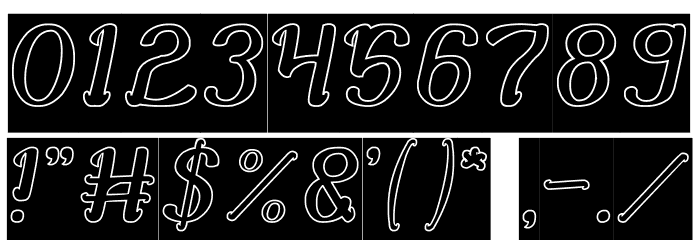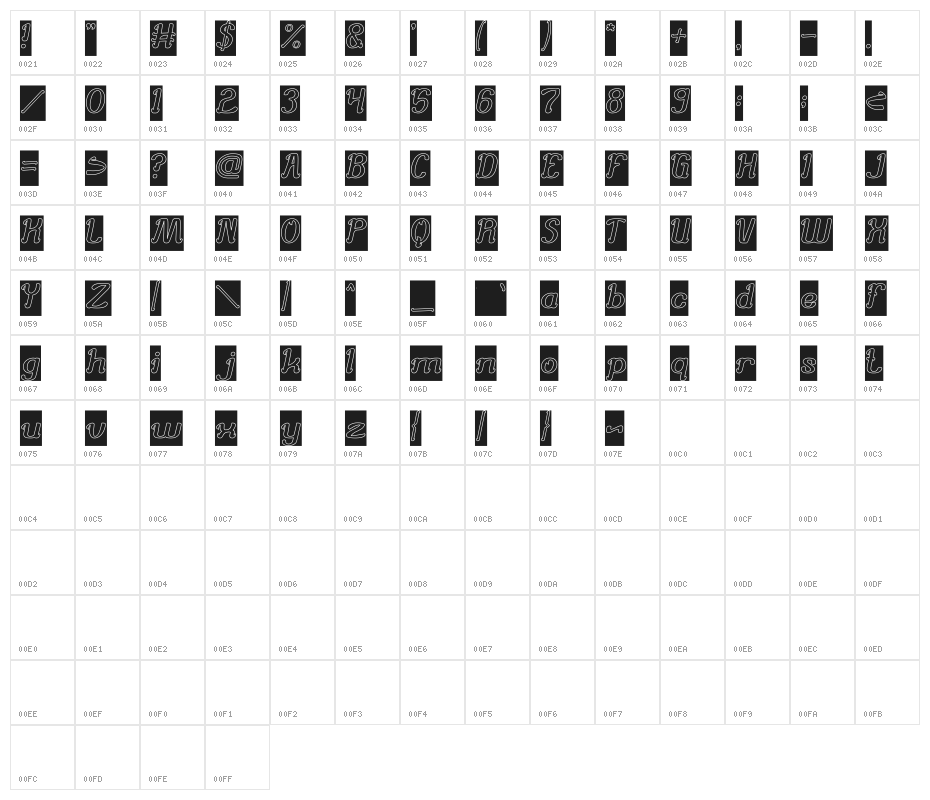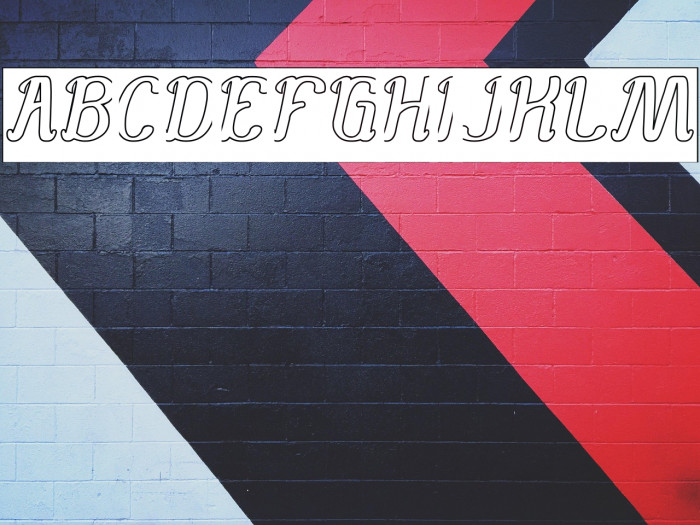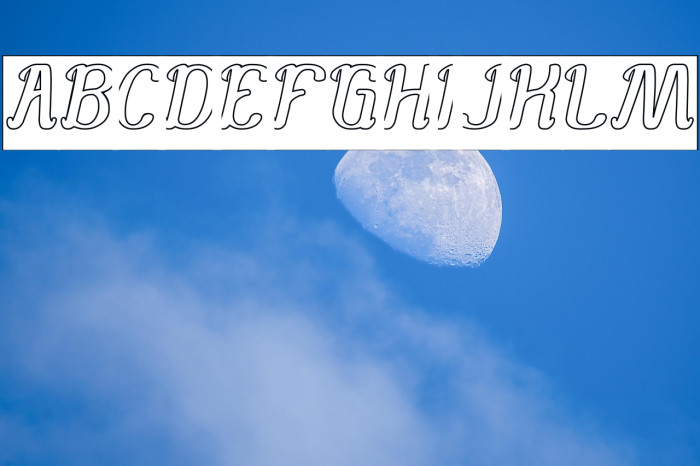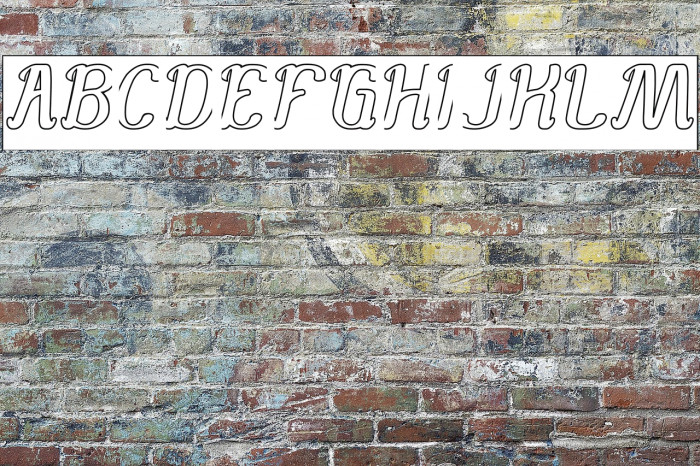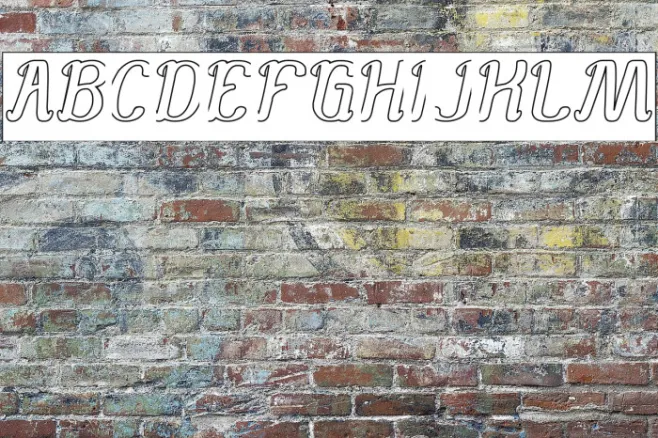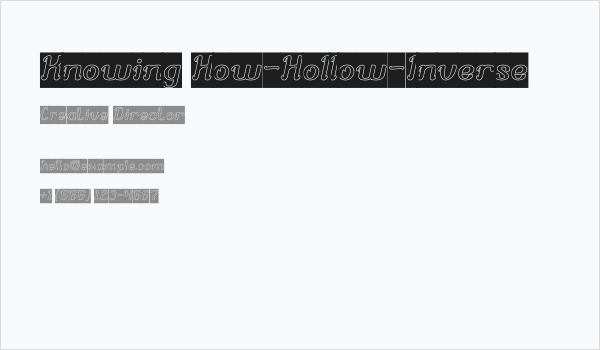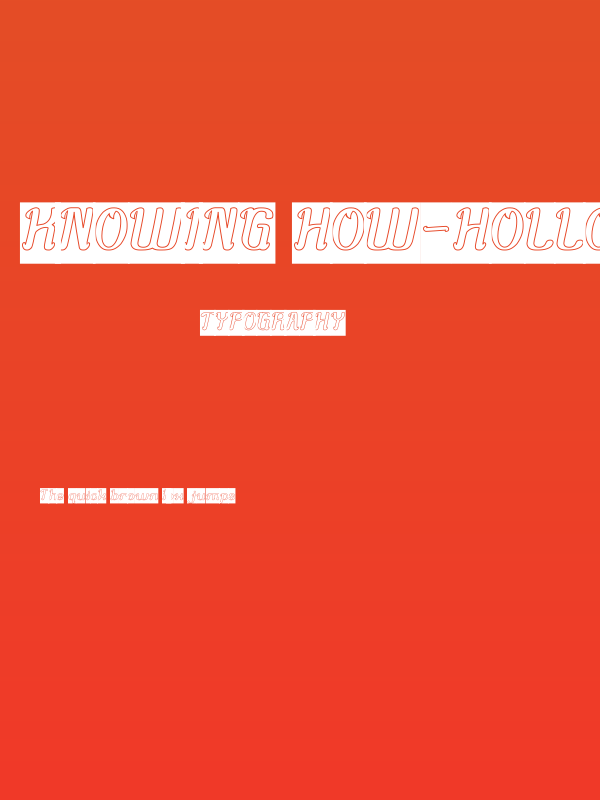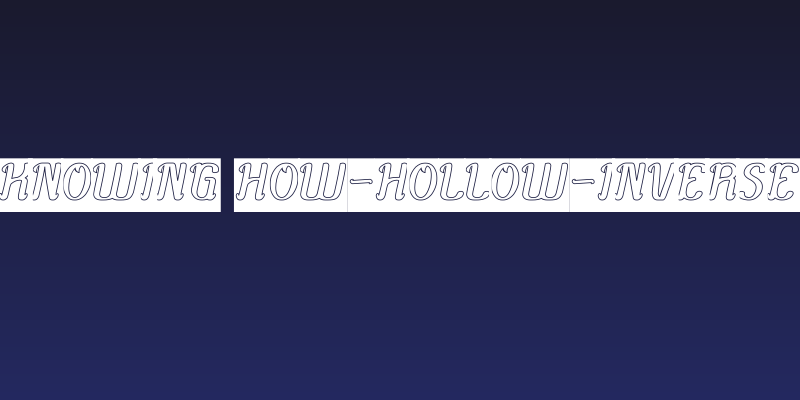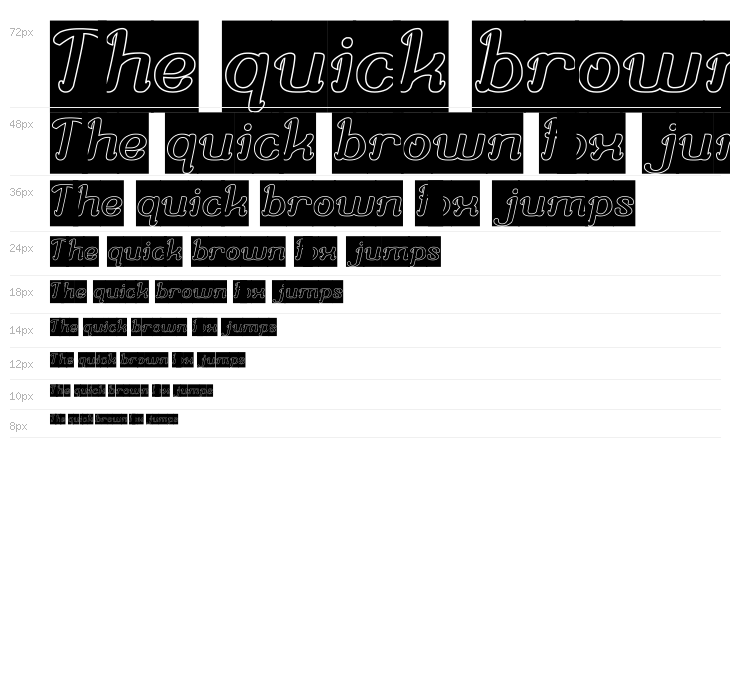
Knowing How-Hollow-Inverse Font
Knowing How-Hollow-Inverse Description
This font features a unique hollow design with an inverse style, where the interior of each character is transparent, creating a striking outline effect. The characters are elegantly curved, with a consistent stroke width that gives a uniform appearance across both uppercase and lowercase letters. The numerals and special characters maintain this hollow aesthetic, ensuring a cohesive look throughout. The font's playful yet sophisticated style makes it suitable for creative projects that require a distinctive and eye-catching typeface.
| Proposed Projects | Ideal for branding, poster design, and creative digital artwork where a unique and stylish font is desired. |